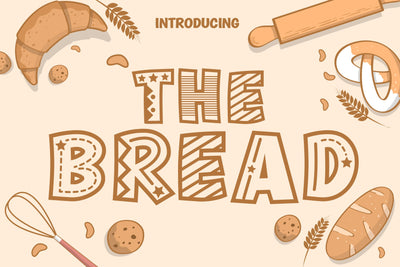
The Bread Fonts
The Bread Fonts are display fonts that are brilliant, fun, and cute, suitable for use in any topic that makes them stand out. It is perfect for children-themed designs, especially when combined with bright colors.